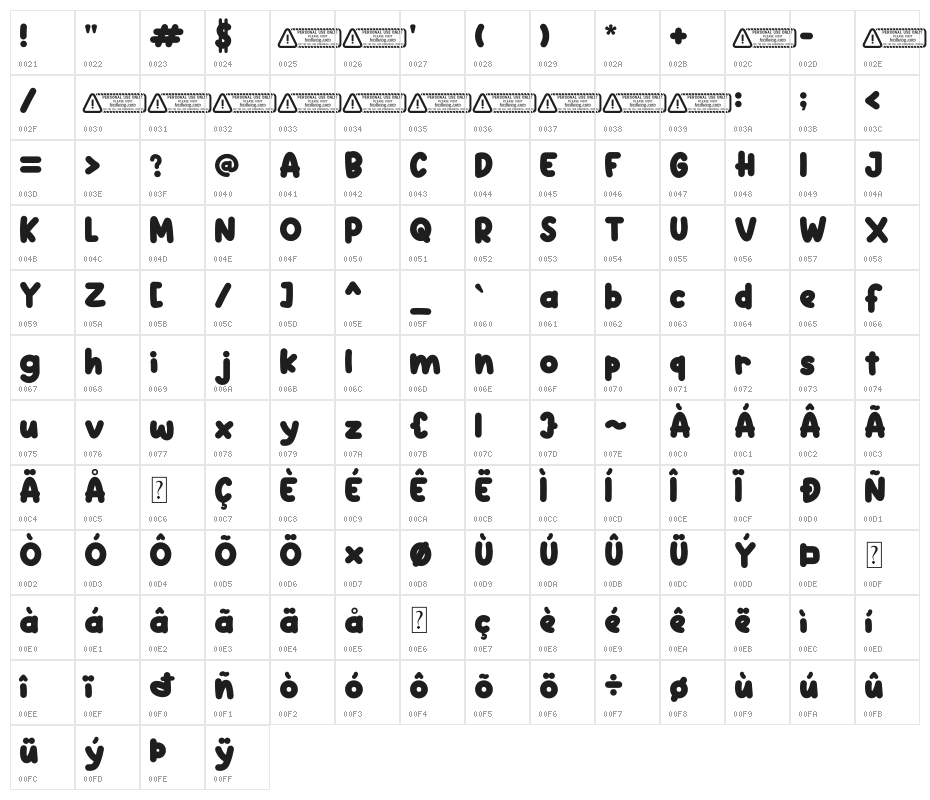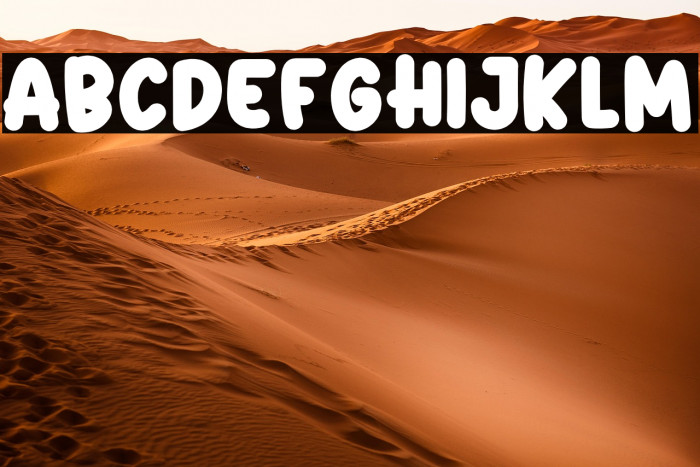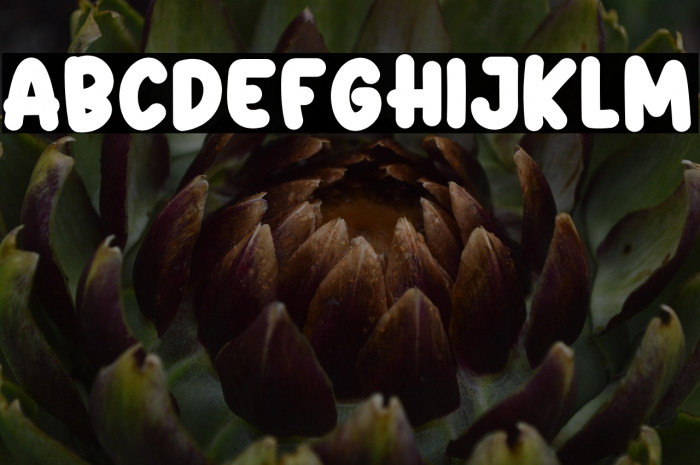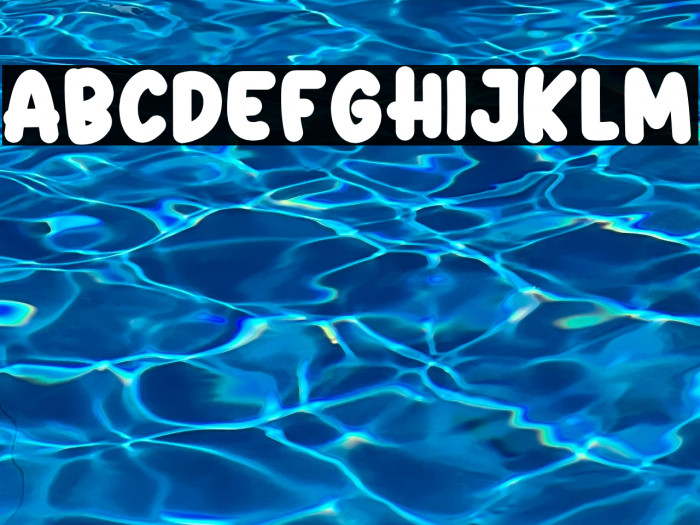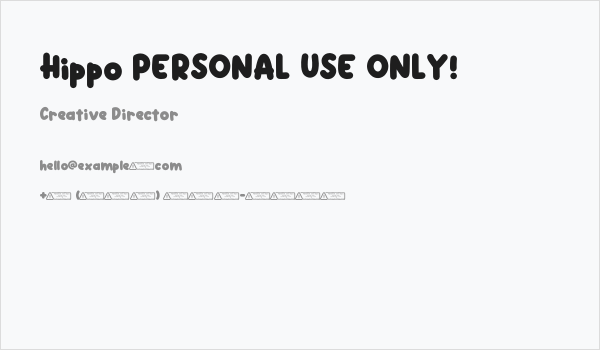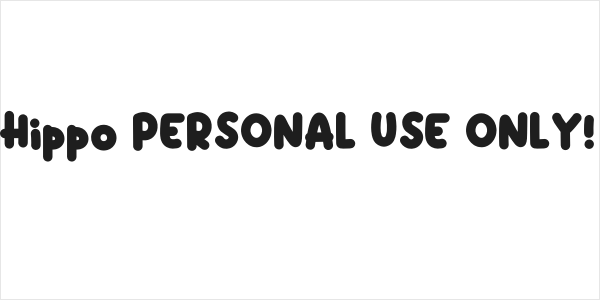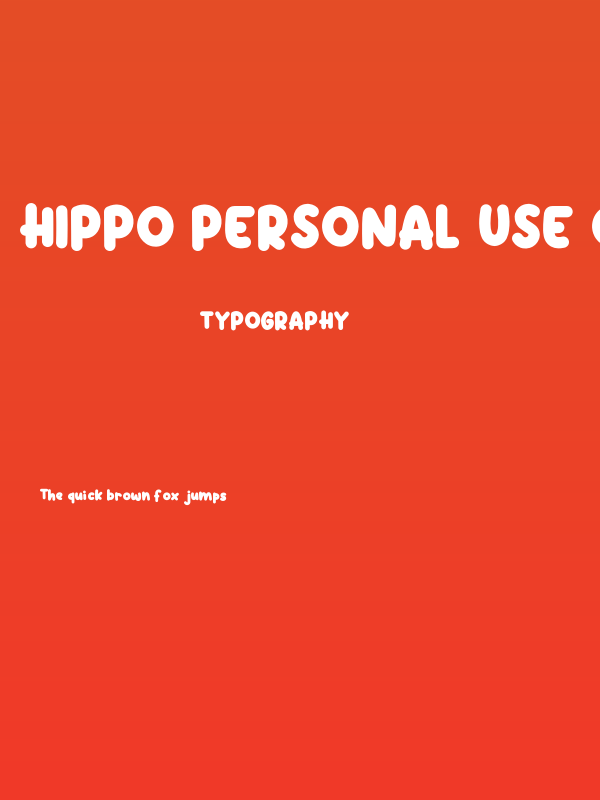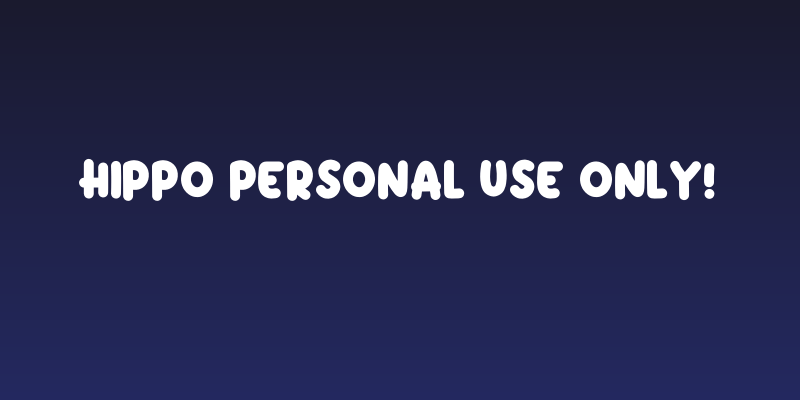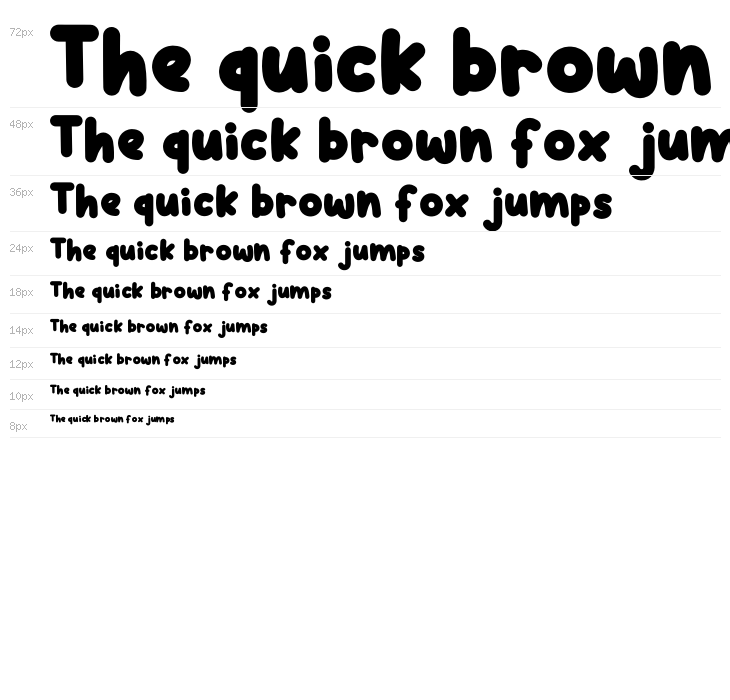
Hippo PERSONAL USE ONLY! Font
Hippo PERSONAL USE ONLY! Description
This playful and bold font features rounded, bubbly characters that exude a sense of fun and approachability. The letters are thick and uniform, with a consistent stroke width that gives them a cartoonish and friendly appearance. The uppercase and lowercase letters maintain a cohesive style, while the numerals and special characters complement the overall design. This font is ideal for projects that require a lighthearted and informal touch, making it perfect for children's materials, playful branding, or casual invitations.
| Overall Style | Playful, Cartoonish |
| Proposed Projects | Children's books, playful branding, casual invitations, party flyers, and educational materials. |